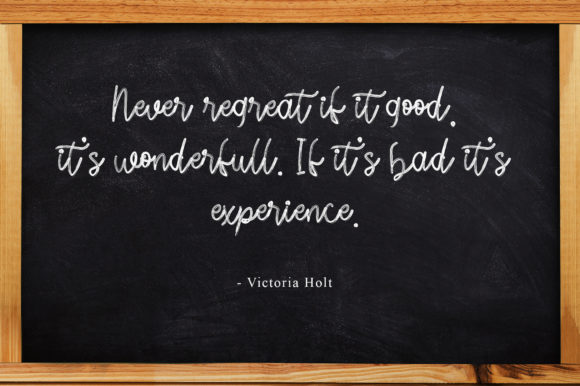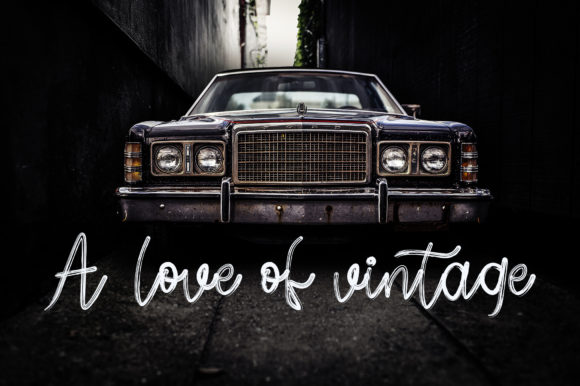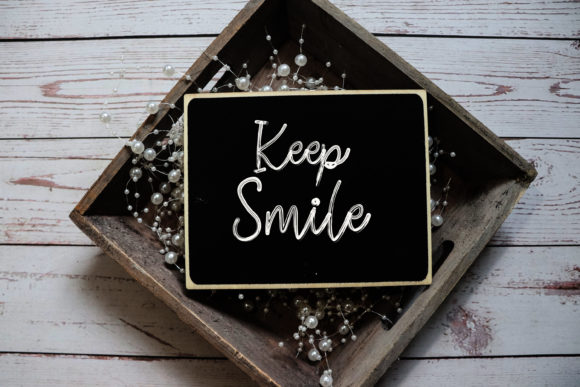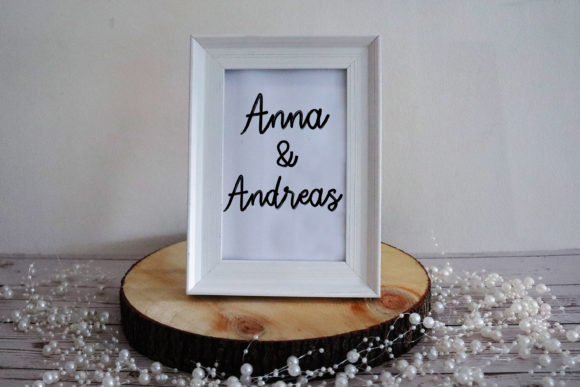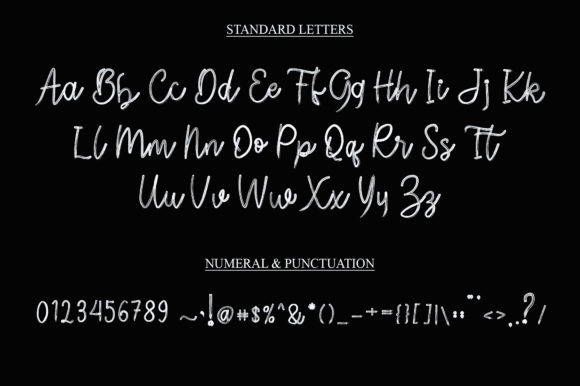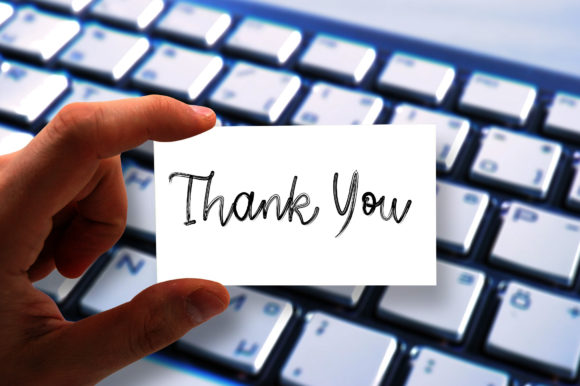
Discover the Whimsy of Bunny House Font
Have you ever been stuck on a design project, staring at a blank page, waiting for that spark of creativity to strike? I’m sure many designers can relate to the frustration of not knowing where to start. But what if I told you that the solution lies in the perfect blend of modern calligraphy and fun brush texture? Enter the enchanting Bunny House Font, a chic handwritten font that’s about to revolutionize your design game.
This versatile font is designed to elevate your branding and digital designs, making it perfect for logos, social media, websites, blogs, and more. With its thin, modern calligraphy look, Bunny House Font adds a touch of sophistication to any design. Whether you’re a seasoned designer or just starting out, this font is a valuable addition to your toolkit, sure to take your designs to the next level.
Bunny House Font Key Features
- Unique Characteristics: Bunny House Font features a playful, whimsical design with intricate details and a mix of bold and delicate lines, making it perfect for adding a touch of personality to designs.
Bunny House Font Review
As a designer, I was excited to try out the Bunny House Font, and overall, I think it’s a cute and playful addition to any project. ✨ Here are some things that worked well for me:
- Unique character set: The font has a distinct, whimsical feel that’s perfect for children’s books, party invitations, or any design that needs a touch of magic.
- Customizable: The font is available in various weights and styles, making it easy to find the perfect combination for your design.
- Scalable: I was happy to find that the font looks great at various sizes, from tiny to large, without losing its charm.
- Limited language support: As of my knowledge cutoff, the font only supports a limited number of languages, which may be a problem for projects that require multilingual support.
- Not ideal for formal designs: While the font is perfect for playful designs, it may not be the best choice for formal or professional projects, as it can come across as too childish.
Overall, I think the Bunny House Font is a fun and creative addition to any designer’s toolkit. With its unique character set and customizable options, it’s perfect for projects that need a touch of whimsy. However, be aware of its limitations, and use it wisely.
The Bunny House Font is ideal for:
Children’s book illustrations
Party invitations and decorations
Family photo albums and scrapbooks
Use the Bunny House Font in combination with other playful fonts to create a whimsical and childlike atmosphere.
Experiment with different font sizes and colors to add visual interest to your design.
Use the font in conjunction with illustrations and graphics to create a cohesive and engaging design.
Alternatives to Bunny House Font
Ostrich Sans is a sans-serif font designed for body text. It is ideal for use in long-form content, such as articles and blog posts. Ostrich Sans is a more traditional font compared to Bunny House Font, which has a more playful and whimsical feel. While Bunny House Font is best suited for titles and headings, Ostrich Sans can be used for both body text and titles.
Lato is a sans-serif font designed for use in digital interfaces. It is highly legible and suitable for use in a wide range of applications, from website headers to body text. Lato is more versatile than Bunny House Font, which is best suited for titles and headings. Lato can be used in a variety of contexts, from modern and sleek to traditional and elegant.